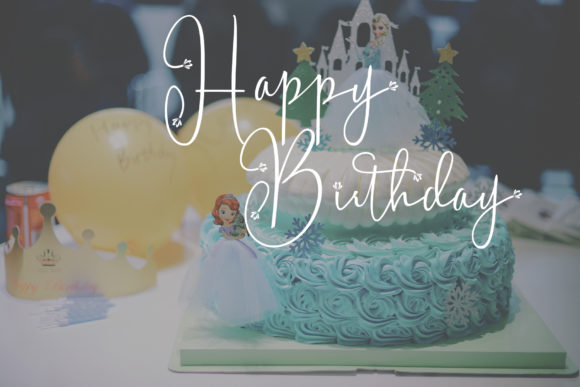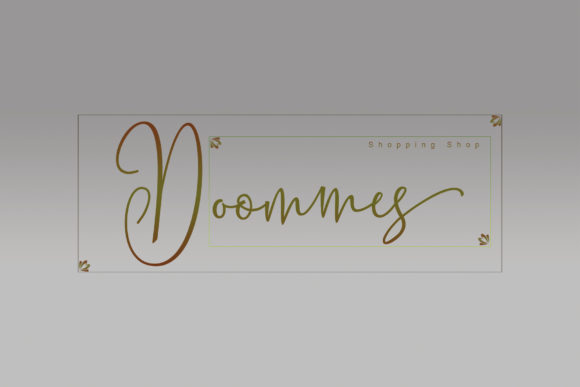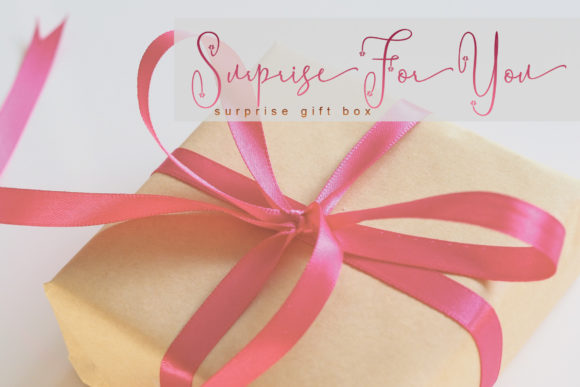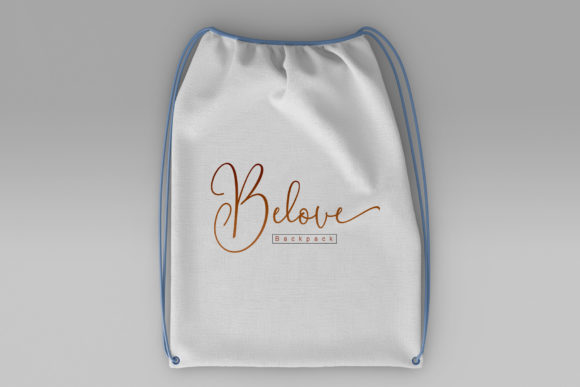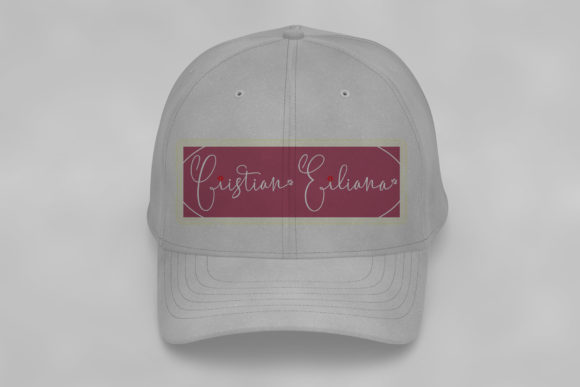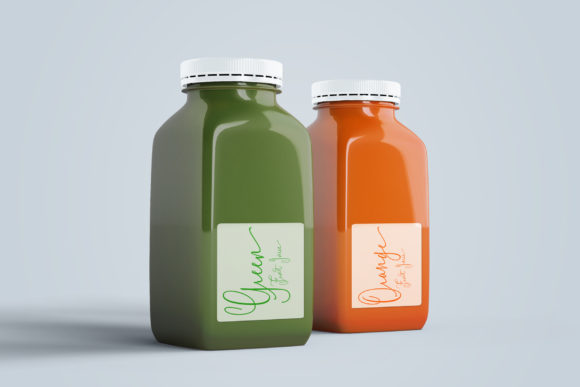
Introduction to Battista Font
Battista is a bold and playful font that will turn any design project into a true piece of art.
| 👤 Author | Polem |
Battista is a bold and playful font that will turn any design project into a true piece of art.
Key Features of Battista Font
Why Choose Battista Font?